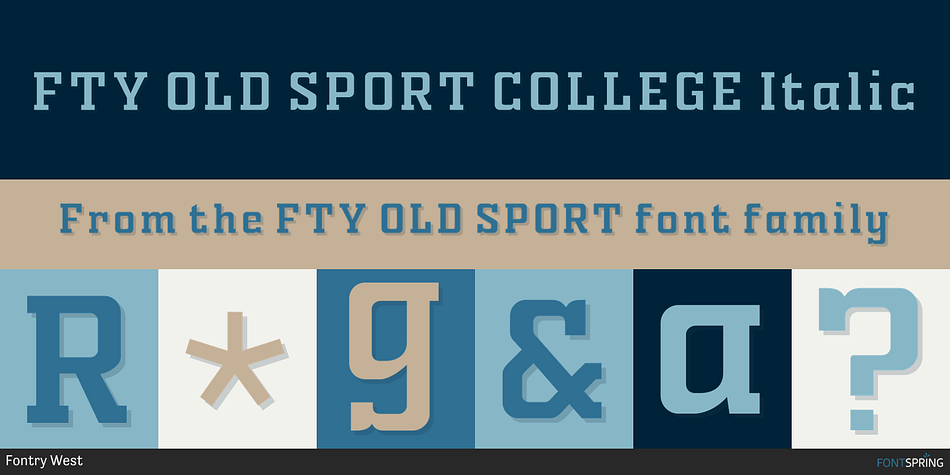
FTY OLD SPORT COLLEGE Italic
FTY OLD SPORT is a display slab and slab serif font family. This typeface has five styles and was published by Fontry West.
FTY Old Sport Athletic and College
Alf Becker demonstrated samples of hand lettering in Signs of the Times for several years. Round Block Type is his 289th alphabet. It was the inspiration for FTY Old Sport. This font collection is a collaboration of deranged typographers, Mike Adkins and James L Stirling. There are two basic faces Athletic and College. College is 4 fonts for layered effects, though the layers can be used separately for great affect. The bold slab serif faces will be a winner in all kinds of designs. The strong stance will break out go the distance in your design.
• Stylistic Alternates
• Ligatures